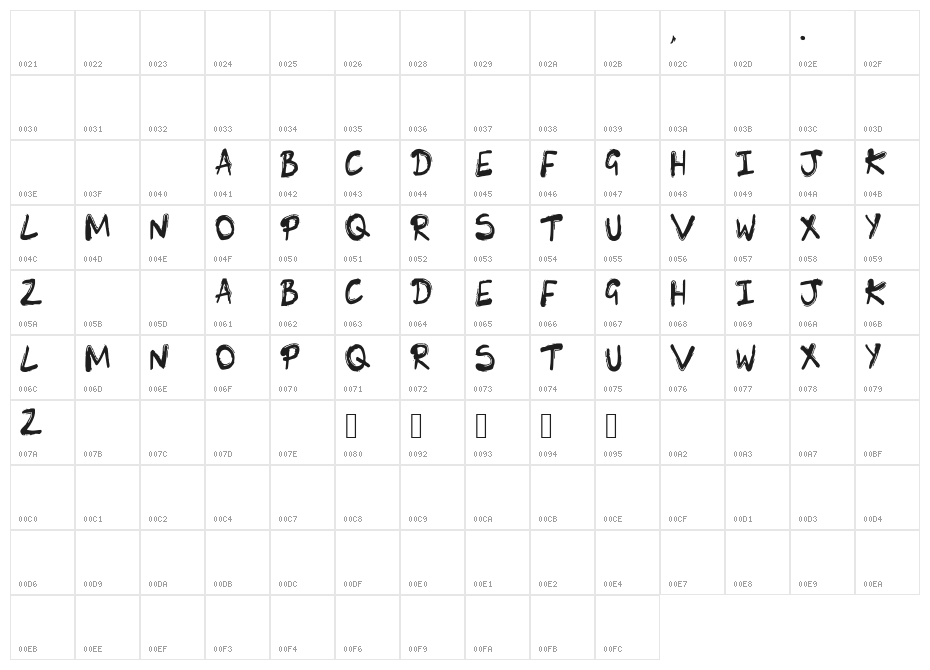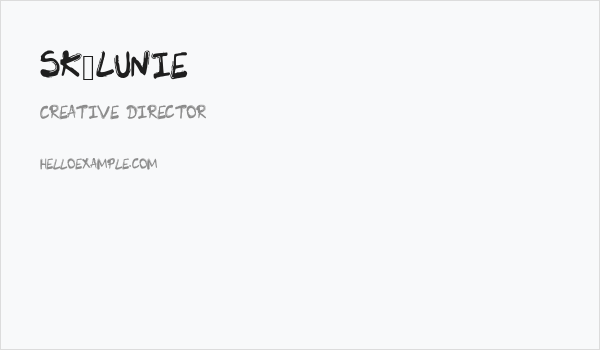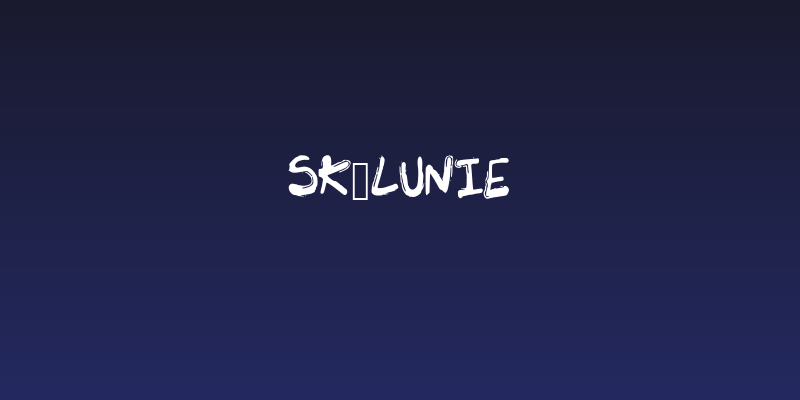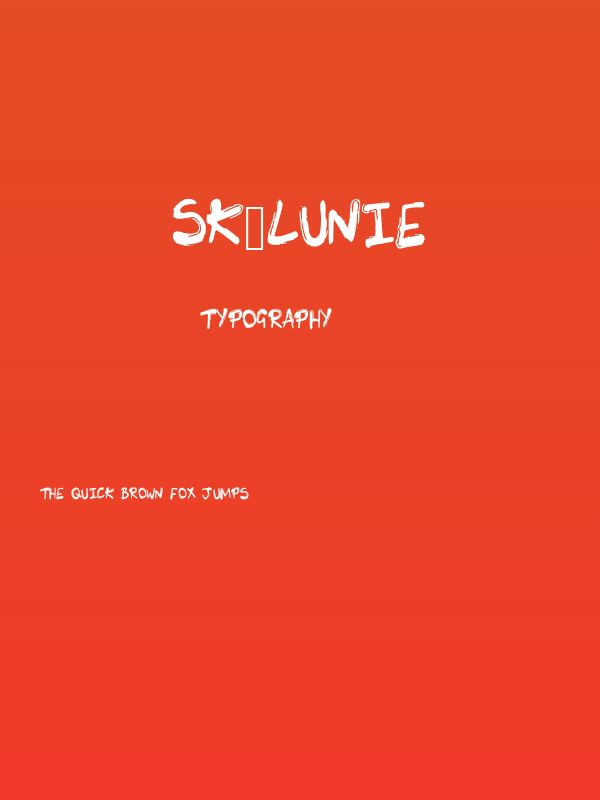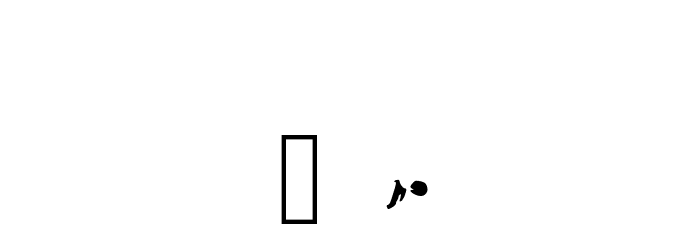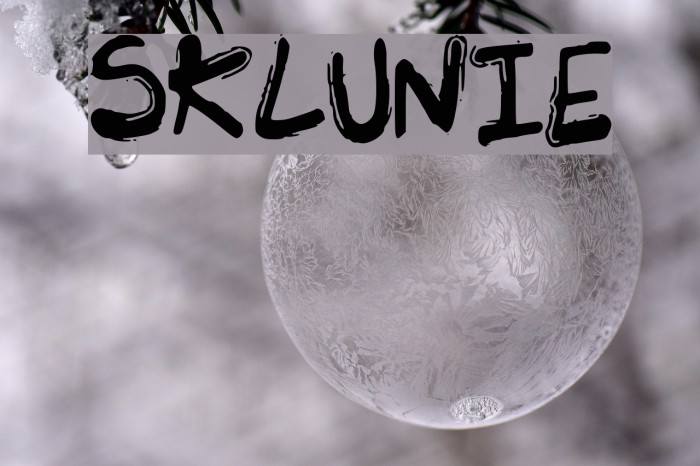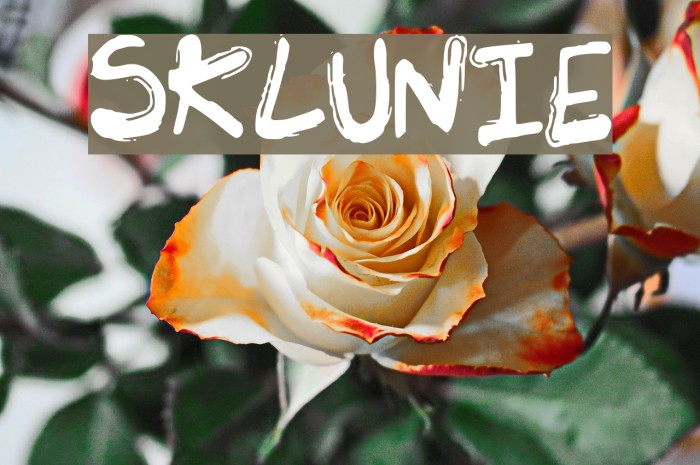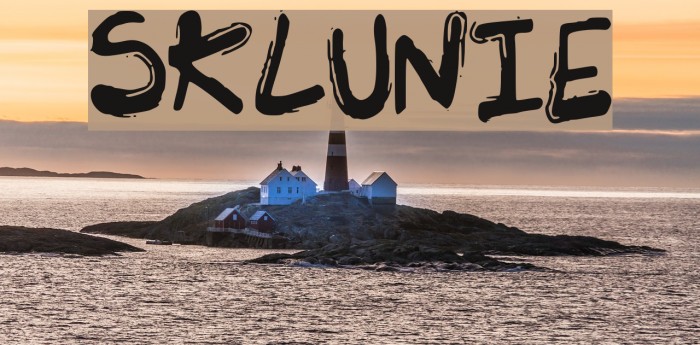
SK_LUNIE Font
SK_LUNIE Description
This font features a bold and expressive style, characterized by its brush-like strokes and dynamic appearance. The uppercase letters are prominent, with a slightly irregular form that adds a sense of movement and energy. The lowercase letters maintain a consistent style, complementing the uppercase with a cohesive look. The numbers and special characters follow the same design principles, ensuring uniformity across all glyphs. The overall aesthetic is artistic and informal, making it suitable for creative projects that require a touch of personality and flair.
| Proposed Projects | Ideal for artistic projects, posters, branding, and any design requiring a bold, creative touch. |